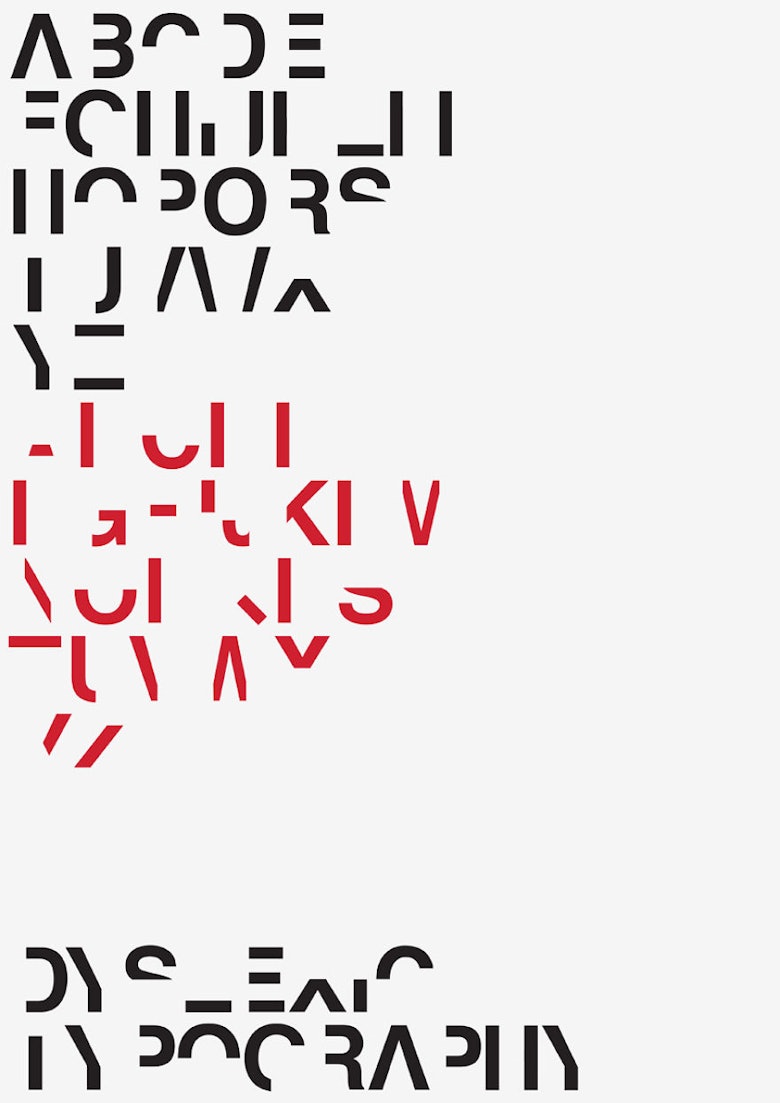
Worst Font For Dyslexia . It is scientifically proven that fonts affect people with serious visual impairment or dyslexia. Also, fonts with irregular spacing, shapes, or curves are harder for dyslexic people to read. Fonts in italics are generally considered the worst for people with dyslexia. The right font choice can significantly improve their reading experience, while the wrong font can cause further challenges. Arial, helvetica and verdana (the font reddit uses), as examples, have been proven to help readability for. On scores of reading speed and accuracy, dyslexia fonts perform no better than common fonts like arial and times new roman, and sometimes they perform worse, according to recent studies. Even using dyslexia fonts with neutral effects can raise false hopes in struggling young readers, contributing to feelings of helplessness and. Let's explore the impact of fonts on dyslexia. Find the best fonts for dyslexia, including standard choices like arial and special fonts created for those who have dyslexia. What are the worst fonts for visually impaired individuals?
Let's explore the impact of fonts on dyslexia. Even using dyslexia fonts with neutral effects can raise false hopes in struggling young readers, contributing to feelings of helplessness and. On scores of reading speed and accuracy, dyslexia fonts perform no better than common fonts like arial and times new roman, and sometimes they perform worse, according to recent studies. Also, fonts with irregular spacing, shapes, or curves are harder for dyslexic people to read. Fonts in italics are generally considered the worst for people with dyslexia. Find the best fonts for dyslexia, including standard choices like arial and special fonts created for those who have dyslexia. It is scientifically proven that fonts affect people with serious visual impairment or dyslexia. What are the worst fonts for visually impaired individuals? The right font choice can significantly improve their reading experience, while the wrong font can cause further challenges. Arial, helvetica and verdana (the font reddit uses), as examples, have been proven to help readability for.
Worst Font For Dyslexia On scores of reading speed and accuracy, dyslexia fonts perform no better than common fonts like arial and times new roman, and sometimes they perform worse, according to recent studies. What are the worst fonts for visually impaired individuals? Arial, helvetica and verdana (the font reddit uses), as examples, have been proven to help readability for. Even using dyslexia fonts with neutral effects can raise false hopes in struggling young readers, contributing to feelings of helplessness and. On scores of reading speed and accuracy, dyslexia fonts perform no better than common fonts like arial and times new roman, and sometimes they perform worse, according to recent studies. The right font choice can significantly improve their reading experience, while the wrong font can cause further challenges. Fonts in italics are generally considered the worst for people with dyslexia. It is scientifically proven that fonts affect people with serious visual impairment or dyslexia. Also, fonts with irregular spacing, shapes, or curves are harder for dyslexic people to read. Let's explore the impact of fonts on dyslexia. Find the best fonts for dyslexia, including standard choices like arial and special fonts created for those who have dyslexia.
Designer Creates A Font That Emulates The Frustrations Of Dyslexia Worst Font For Dyslexia Arial, helvetica and verdana (the font reddit uses), as examples, have been proven to help readability for. Let's explore the impact of fonts on dyslexia. Fonts in italics are generally considered the worst for people with dyslexia. On scores of reading speed and accuracy, dyslexia fonts perform no better than common fonts like arial and times new roman, and sometimes. Worst Font For Dyslexia.
Best and Worst Fonts for Dyslexia Worst fonts, Dyslexia, Learning Worst Font For Dyslexia Also, fonts with irregular spacing, shapes, or curves are harder for dyslexic people to read. What are the worst fonts for visually impaired individuals? Let's explore the impact of fonts on dyslexia. The right font choice can significantly improve their reading experience, while the wrong font can cause further challenges. Fonts in italics are generally considered the worst for people. Worst Font For Dyslexia.
Dyslexia Font POPSUGAR Tech Worst Font For Dyslexia Find the best fonts for dyslexia, including standard choices like arial and special fonts created for those who have dyslexia. What are the worst fonts for visually impaired individuals? Arial, helvetica and verdana (the font reddit uses), as examples, have been proven to help readability for. Also, fonts with irregular spacing, shapes, or curves are harder for dyslexic people to. Worst Font For Dyslexia.
Designer Creates A Font That Emulates The Frustrations Of Dyslexia Worst Font For Dyslexia What are the worst fonts for visually impaired individuals? It is scientifically proven that fonts affect people with serious visual impairment or dyslexia. On scores of reading speed and accuracy, dyslexia fonts perform no better than common fonts like arial and times new roman, and sometimes they perform worse, according to recent studies. The right font choice can significantly improve. Worst Font For Dyslexia.
best and worst fonts for dyslexia Worst Font For Dyslexia On scores of reading speed and accuracy, dyslexia fonts perform no better than common fonts like arial and times new roman, and sometimes they perform worse, according to recent studies. Let's explore the impact of fonts on dyslexia. Find the best fonts for dyslexia, including standard choices like arial and special fonts created for those who have dyslexia. The right. Worst Font For Dyslexia.
Dyslexia Font Worst Font For Dyslexia Fonts in italics are generally considered the worst for people with dyslexia. Even using dyslexia fonts with neutral effects can raise false hopes in struggling young readers, contributing to feelings of helplessness and. What are the worst fonts for visually impaired individuals? On scores of reading speed and accuracy, dyslexia fonts perform no better than common fonts like arial and. Worst Font For Dyslexia.
10+ Best Fonts for Dyslexia in 2021 Free and Premium — MasterBundles Worst Font For Dyslexia Even using dyslexia fonts with neutral effects can raise false hopes in struggling young readers, contributing to feelings of helplessness and. On scores of reading speed and accuracy, dyslexia fonts perform no better than common fonts like arial and times new roman, and sometimes they perform worse, according to recent studies. The right font choice can significantly improve their reading. Worst Font For Dyslexia.
Fonts for Dyslexia Worst Font For Dyslexia Arial, helvetica and verdana (the font reddit uses), as examples, have been proven to help readability for. Even using dyslexia fonts with neutral effects can raise false hopes in struggling young readers, contributing to feelings of helplessness and. On scores of reading speed and accuracy, dyslexia fonts perform no better than common fonts like arial and times new roman, and. Worst Font For Dyslexia.